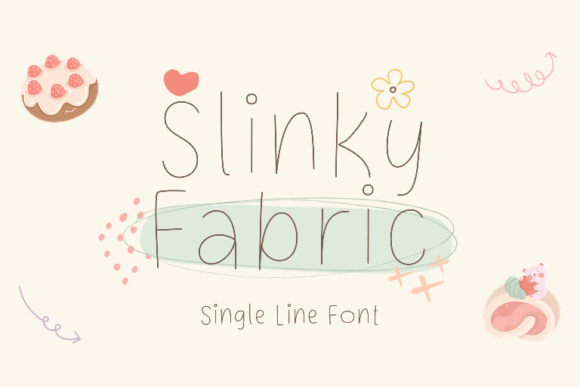
Slinky Fabric is a neat and casual single line font. Whether you’re using it for crafts, digital design, presentations, or making greeting cards, this font has the potential to become your favorite go-to font, no matter the occasion!
Slinky Fabric Font